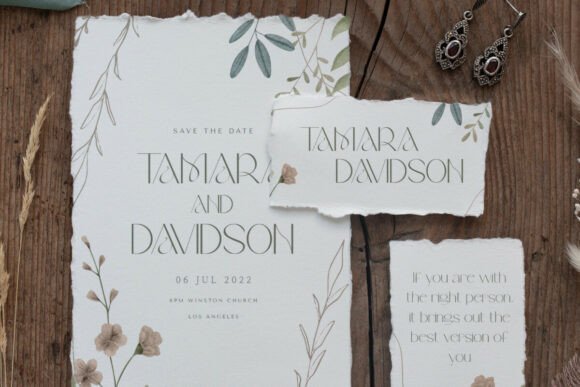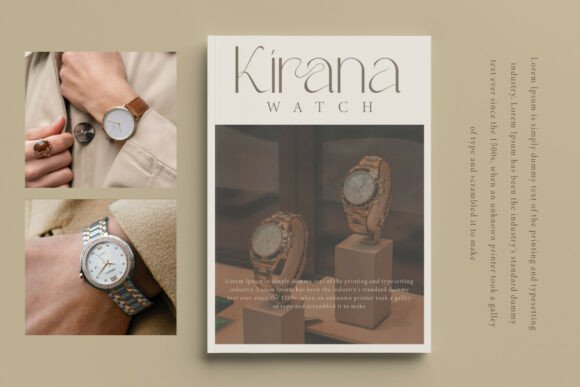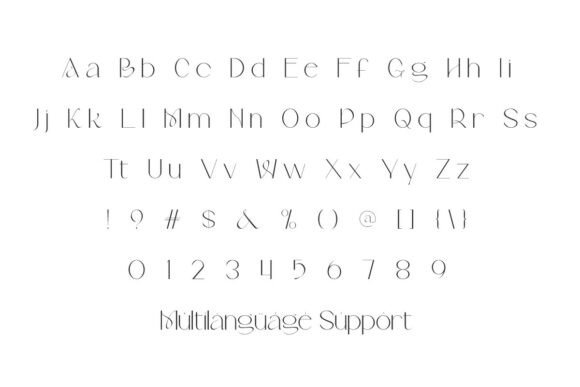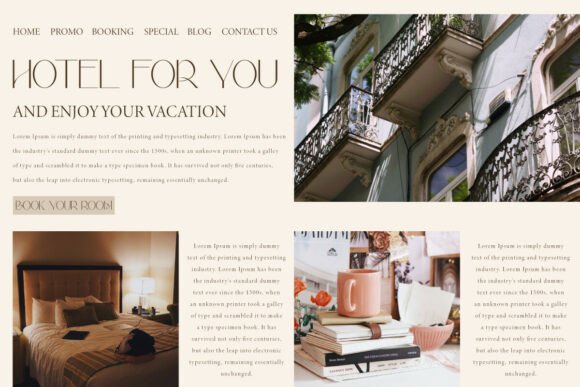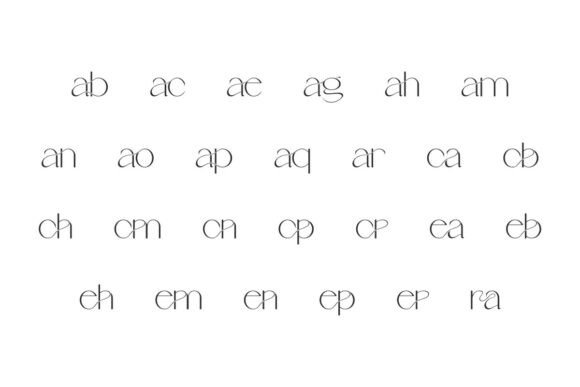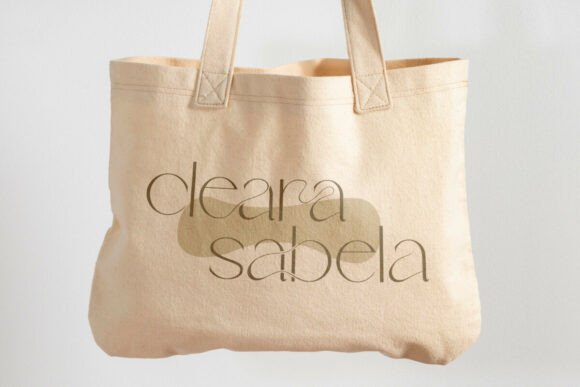
Introducing Cleara Sabela Font: Elevate Your Design with Sophistication and Versatility
Are you on the hunt for a font that embodies both modernity and timeless elegance? Look no further than Cleara Sabela Font, a stylish sans & serif font family designed to bring a touch of sophistication to your creative projects. This versatile font duo is perfect for designers and crafters seeking to make a statement with their work.
What is Cleara Sabela Font?
Cleara Sabela Font is not just any ordinary font; it’s a thoughtfully crafted combination of a clean, modern sans serif font and a refined, classic serif font. This dual nature allows it to seamlessly adapt to a wide range of design needs, from bold headlines and sleek branding to elegant invitations and editorial layouts.
The Power of Versatility: Sans & Serif Combination
The beauty of Cleara Sabela Font lies in its versatility. The sans serif style is perfect for contemporary projects that demand a fresh and modern look. Its clean lines and straightforward shapes make it highly legible, even at smaller sizes, making it ideal for body text and captions.
On the other hand, the serif style adds a touch of classic elegance and sophistication. The subtle serifs enhance readability in longer texts and add a level of refinement that’s perfect for high-end branding, editorials, and luxury packaging.
Whether you’re working on a logo, editorial layout, packaging, social media graphics, or any other creative project, Cleara Sabela Font is up to the task. Its elegant and clear design ensures that your message stands out with clarity and charm, captivating your audience’s attention.
- Logos and Branding: Create a lasting impression with a custom logo or wordmark that exudes professionalism and style.
- Editorial Layouts: Elevate your magazine, newspaper, or blog with elegant typography that enhances readability and aesthetic appeal.
- Packaging: Stand out on store shelves with eye-catching packaging designs that convey your brand’s personality.
- Social Media Graphics: Engage your audience with stylish social media posts, stories, and banners that reflect your brand’s voice.
The Elegance of Cleara Sabela Display Font
Cleara Sabela Display Font, a part of the Cleara Sabela Font family, is an elegant sans-serif display font that commands attention with its magnificent aura. The unique line shapes of its letters contribute to its distinctive look, making it perfect for projects where you want to make a bold statement.
Ideal for:
- Advertising: Grab attention with bold and stylish ad copy.
- Blog and Website: Enhance your online presence with a unique and engaging typography.
- Brand Image: Strengthen your brand identity with consistent and elegant visual communication.
- Gift Box and Packaging: Add a touch of luxury to your product packaging.
- Invitation Card: Create memorable invitations for special occasions.
- Label and Layout Design: Perfect for designing product labels and promotional materials.
- Quotes and Signage: Display inspiring quotes and messages with clarity and style.
- Stationery and Template Designing: Elevate your stationery and templates with a sophisticated look.
Why Choose Cleara Sabela Font?
Cleara Sabela Font is more than just a font; it’s a design solution that offers:
- Versatility: Suitable for a wide range of projects, from digital to print.
- Elegance: Adds a touch of sophistication and refinement to your designs.
- Readability: Ensures your message is conveyed clearly and effectively.
- Uniqueness: Stands out in a sea of generic fonts, giving your work a distinctive look.
In conclusion, Cleara Sabela Font is a powerful tool for designers and crafters looking to elevate their creative work. Its combination of modern sans serif and classic serif styles, along with the elegant sans-serif display font, offers endless possibilities for creating stunning designs. Whether you’re aiming for a contemporary look or a timeless feel, Cleara Sabela Font is your go-to choice for making a lasting impression.